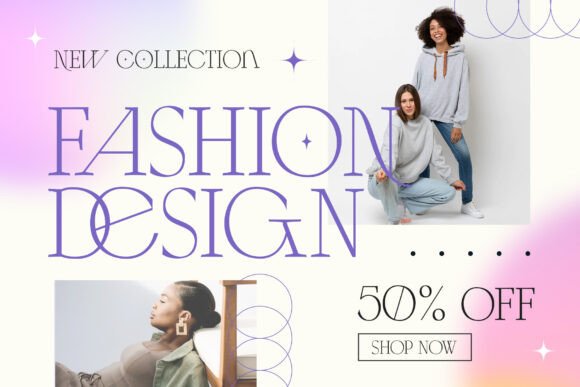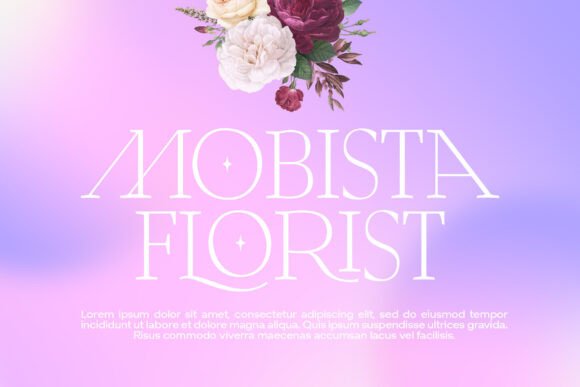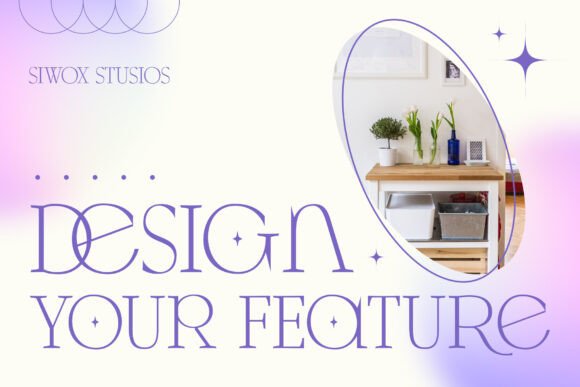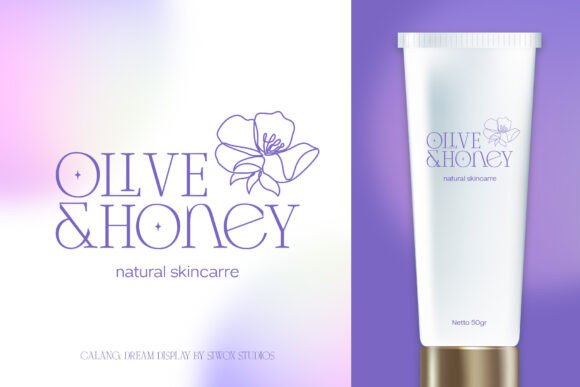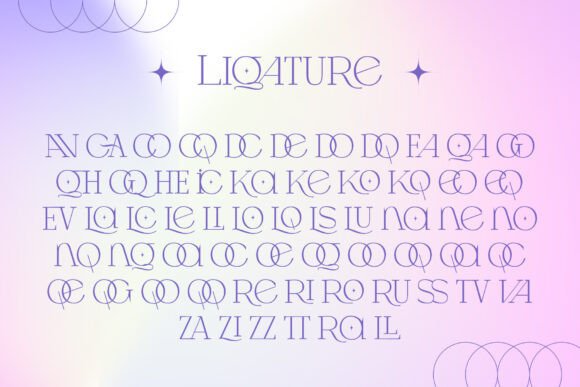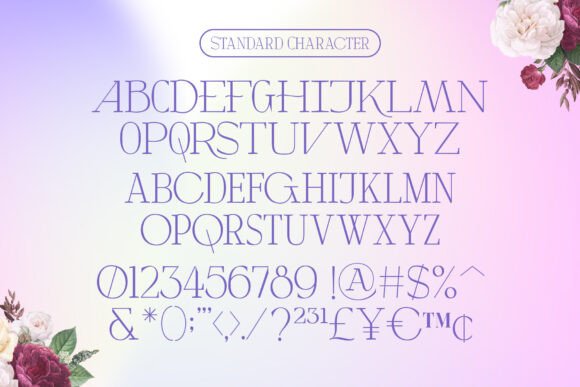
Introducing Calang Dreams Font: Elevate Your Designs with Elegance
Are you searching for a font that adds a touch of sophistication and refinement to your design projects? Look no further than Calang Dreams Font. This delicate and elegant serif font is designed to bring a new level of luxury to your creations, making it perfect for designers and crafters who strive for perfection.
The Beauty of Calang Dreams Font
Calang Dreams Font boasts a classic serif design, characterized by its delicate lines, elegant curves, and refined features. The font’s intricate details and beautiful glyphs are sure to captivate your audience, adding a touch of sophistication to any design project. Whether you’re working on a branding project, packaging design, or editorial layout, Calang Dreams Font is the perfect choice.
One of the standout features of Calang Dreams Font is its PUA (Private Use Area) encoding. This means that you can easily access all of the font’s beautiful glyphs and swashes, giving you extra flexibility in your designs. With PUA encoding, you can unlock the full potential of Calang Dreams Font, experimenting with different combinations of glyphs and swashes to create unique and captivating text.
Special Ligatures for Enhanced Harmony
What sets Calang Dreams Font apart from other serif fonts is its special ligatures. These ligatures are designed to enhance the harmony and uniqueness of your text, giving it a sophisticated and professional look. By incorporating ligatures into your design, you can create a sense of continuity and flow, drawing the reader’s eye through the text. Whether you’re designing a logo, headline, or body text, Calang Dreams Font’s ligatures are sure to impress.
With Calang Dreams Font, the design possibilities are endless. Use it to create stunning branding materials, such as logos, business cards, and letterheads. Add it to your packaging design, and watch as your products stand out on store shelves. You can also use Calang Dreams Font in editorial layouts, such as magazines, newspapers, and books, to add a touch of elegance and sophistication.
Calang Dreams Font is perfect for designers and crafters who strive for perfection. Whether you’re a seasoned professional or just starting out, this font is sure to inspire your creativity. With its delicate and elegant design, Calang Dreams Font is ideal for a wide range of design projects, from digital designs to print materials.
Tips for Using Calang Dreams Font
To get the most out of Calang Dreams Font, here are a few tips to keep in mind:
• Experiment with different font sizes and styles to create visual hierarchy and emphasis.
• Use the font’s ligatures and swashes to add a touch of elegance and sophistication.
• Pair Calang Dreams Font with other fonts to create a unique and captivating design.
• Don’t be afraid to get creative and try out new and innovative design ideas.
In conclusion, Calang Dreams Font is a beautiful and elegant serif font that is sure to elevate your design projects. With its PUA encoding, special ligatures, and delicate design, this font offers endless possibilities for designers and crafters. Whether you’re working on a branding project, packaging design, or editorial layout, Calang Dreams Font is the perfect choice. So why wait? Add Calang Dreams Font to your designs today, and discover the enchanting results it brings!